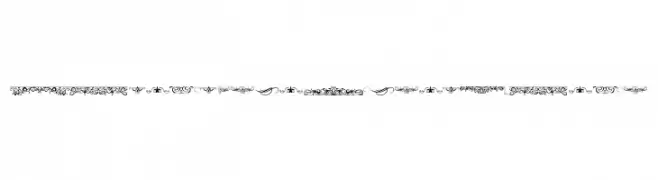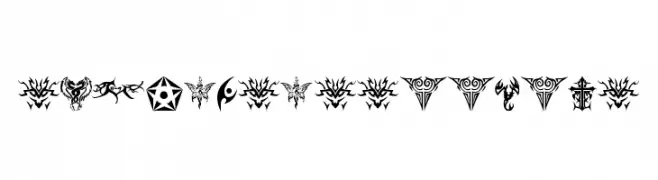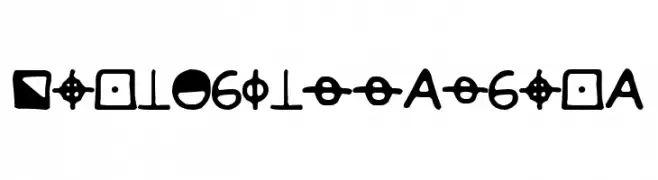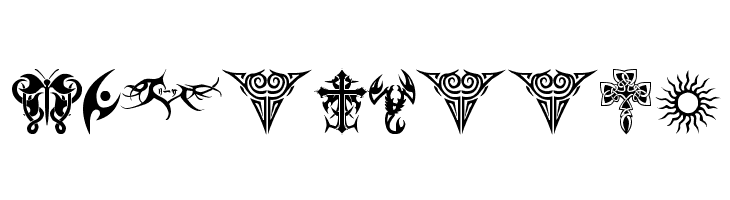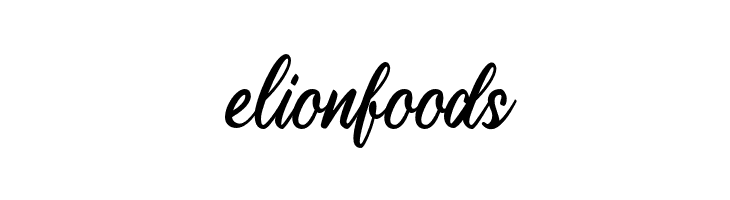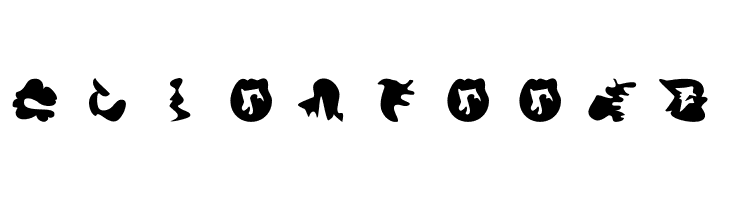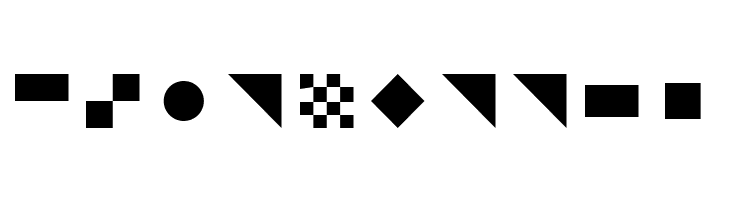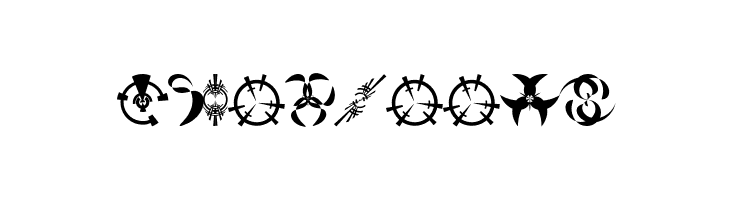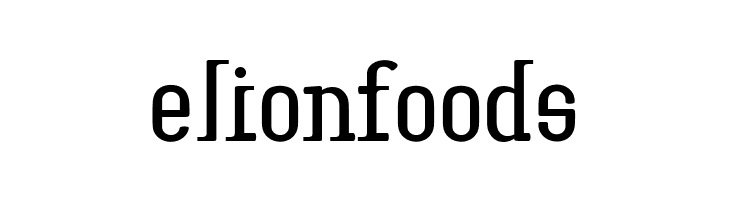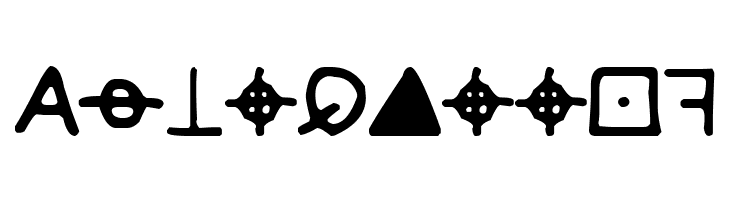
Ornamental and decorative frames and flourishes with vintage styling.
Ornamental tribal tattoo-style symbols with bold, abstract forms.
A whimsical collection of heart and flower motifs for romantic designs.
An elegant, flowing script font with smooth, cursive strokes.
An abstract, artistic font with bold, silhouette-like characters.
A bold and abstract collection of geometric shapes and symbols.
Ornamental vector symbols with an ancient, mystical style.
A robust slab serif font with a modern yet classic appeal, ideal for headlines and body text.
A bold, cryptic symbol font with geometric and abstract glyphs.
A collection of decorative hieroglyphic symbols inspired by ancient Egyptian writing.